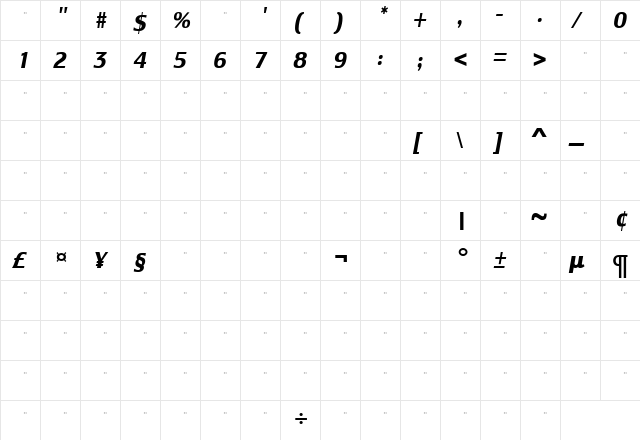
LesmoreBoldCondensedItalicTab Roman Font Preview
Design Context for LesmoreBoldCondensedItalicTab Typeface
LesmoreBoldCondensedItalicTab is a composed and adaptable typeface that performs quietly and consistently across a wide range of design contexts. The dynamic lean of this cut emphasises speed and emphasis in any layout. Its bold stroke weight gives it real presence on the page. The condensed width makes it efficient for tight spaces without sacrificing legibility.
Pro Tip: Try LesmoreBoldCondensedItalicTab for annotation and caption copy alongside an upright companion — the contrast in angle creates a dynamic but ordered typographic system.